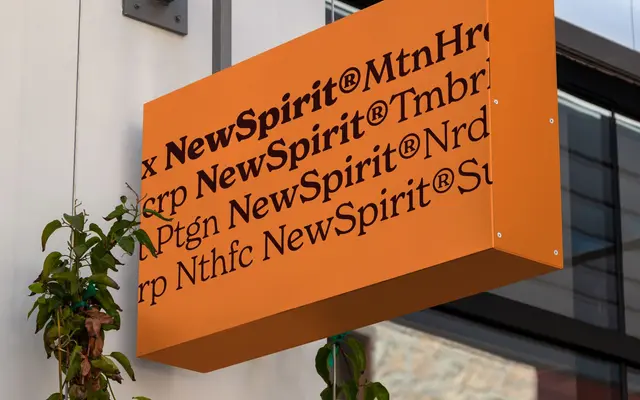
New Spirit
Newlyn · Miles Newlyn
New Spirit specimen from Newlyn
A thorough revival of Windsor (1905) by Miles Newlyn, expanding the original into a full working family of six weights with condensed and compressed cuts.
Based on Windsor, originally released by Stephenson, Blake & Co. in 1905, New Spirit retains the typeface's distinctively organic, art nouveau-inflected character while bringing it into practical use across six weights, five italic styles, condensed and compressed subfamilies. The designer describes it as Arcadian, drawing on a sense of the handmade and the natural, balanced against quieter references to traditional oldstyle serifs. It sits well in editorial, food and wine, and cultural branding where warmth and a faint sense of nostalgia are wanted without sentimentality.
A revival of Windsor (1905), New Spirit blends organic, art nouveau-adjacent forms with oldstyle serif characteristics, described by the designer as Arcadian in spirit with nods to conservative oldstyle traditions.